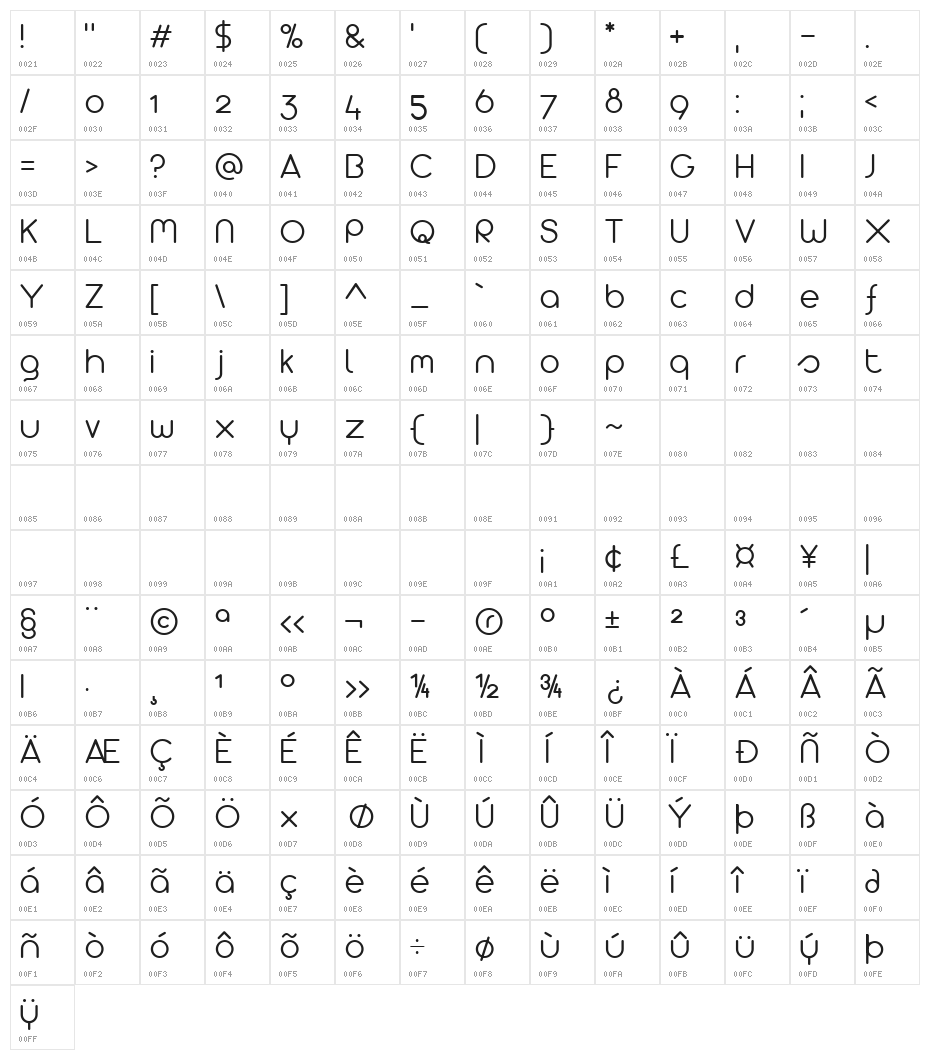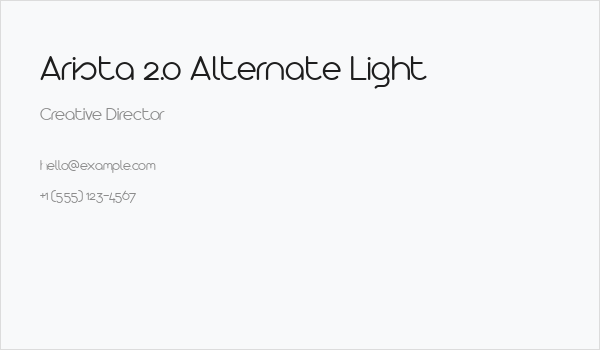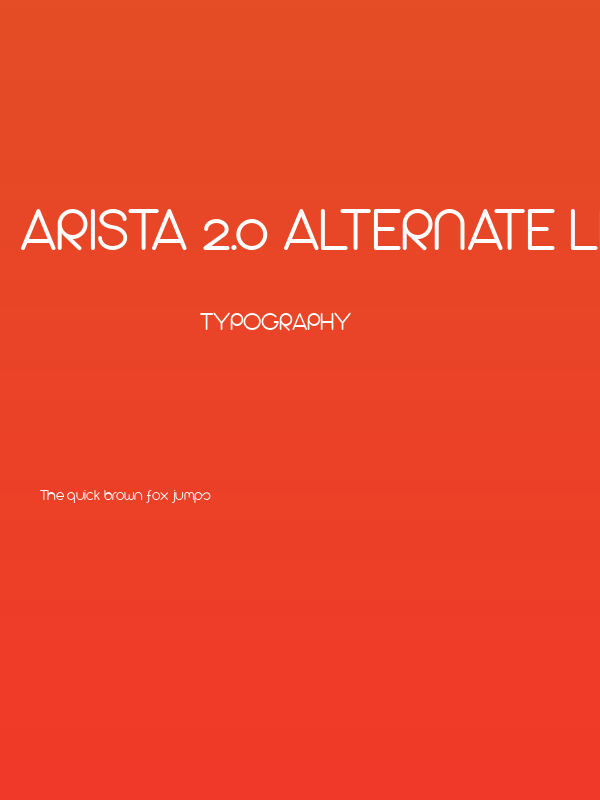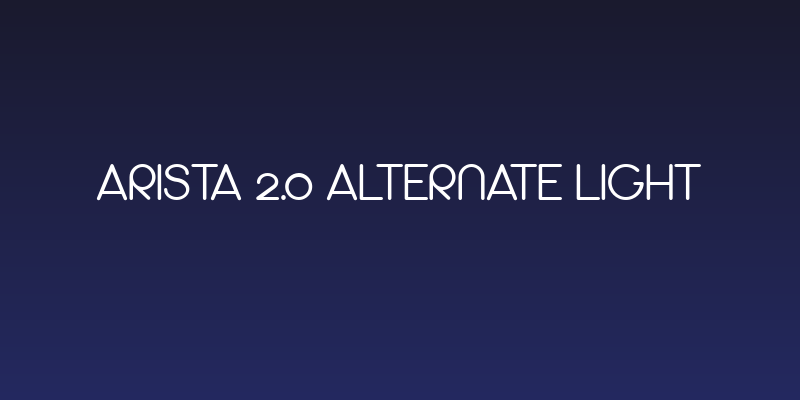
Arista 2.0 Alternate Light Font
Arista 2.0 Alternate Light Description
This font features a clean, modern design with rounded edges and a geometric structure. The characters are evenly spaced, creating a harmonious and balanced appearance. The uppercase and lowercase letters maintain a consistent style, with a slight variation in the curvature of certain characters, adding a touch of uniqueness. The numerals are clear and legible, following the same rounded and open design as the letters. Special characters are well-integrated, maintaining the overall aesthetic. The font's light weight and open forms make it suitable for a variety of applications where readability and a contemporary look are desired.